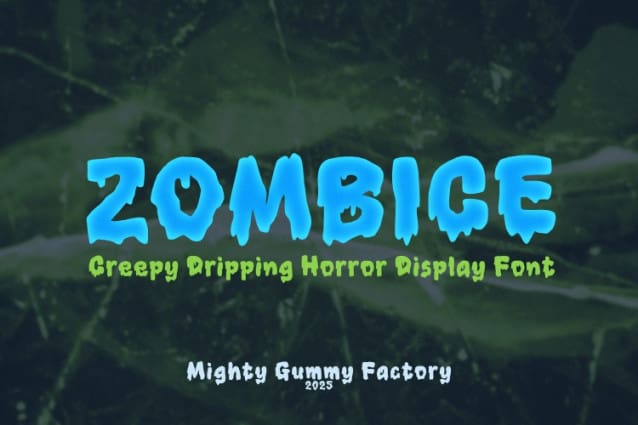
MGF Zombice Font
MGF Zombice Font is a creepy dripping display font with a chilling mix of horror and icy slime vibes, making it perfect for Halloween posters, gaming designs, spooky logos, and merchandise. Its bold letterforms resemble melting ice or dripping slime, giving your designs a scary yet playful aesthetic.
Zombice is a creepy dripping display font that combines horror-inspired vibes with a chilling icy look. The bold, melting letterforms create a sense of mystery, fear, and fun, making it perfect for Halloween posters, gaming logos, scary movie titles, or spooky merchandise.
Style & Vibe: Horror, creepy, drippy, bold, spooky-fun
Intended Market: Halloween designers, gaming brands, horror movie posters, themed event flyers, merchandise sellers
Letterform Structure: Bold uppercase with dripping/slimy shapes that resemble melting ice or blood
Best Use Cases: Horror branding, Halloween events, gaming graphics, posters, YouTube thumbnails, apparel